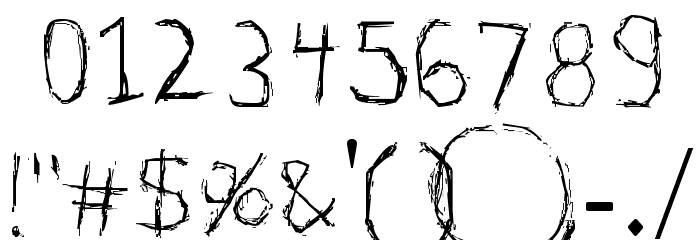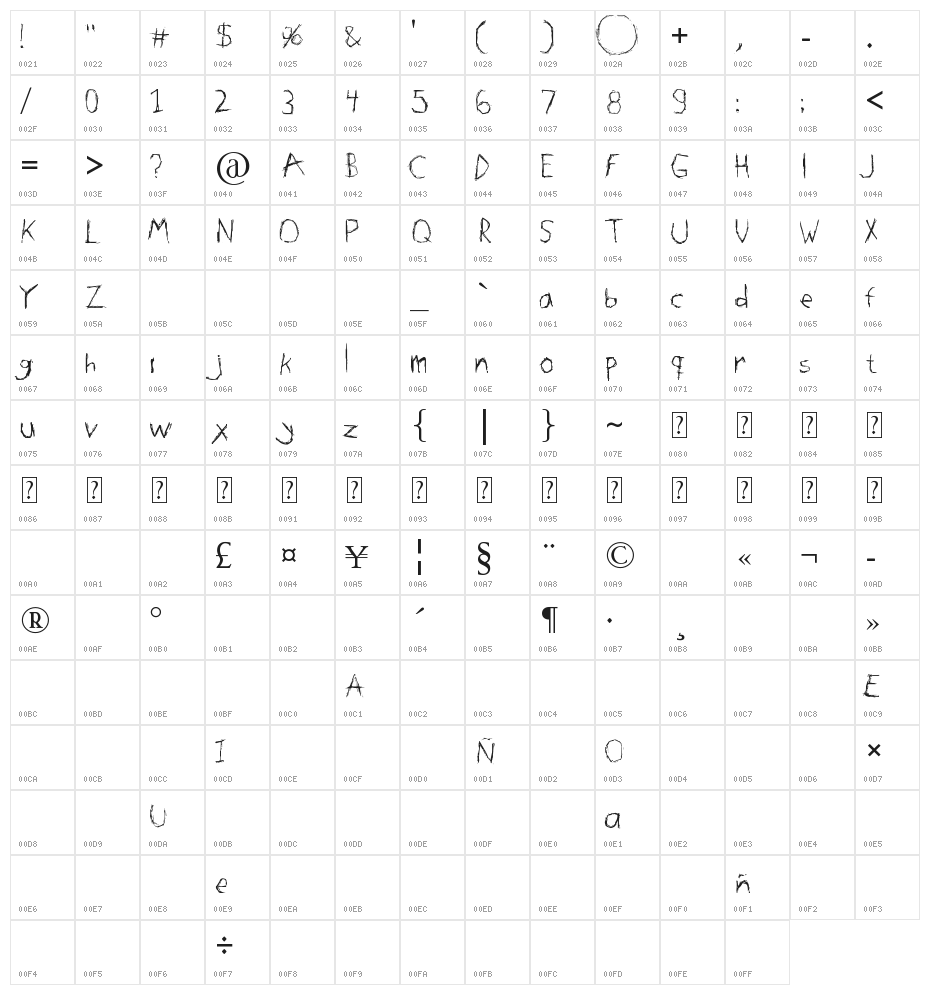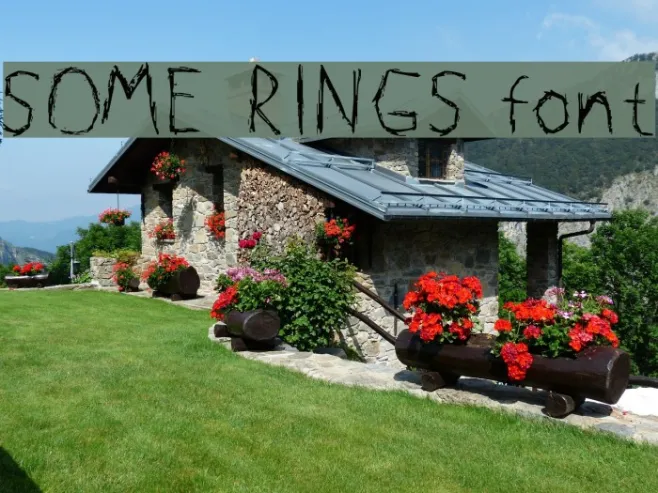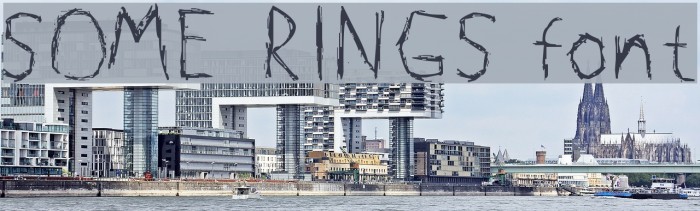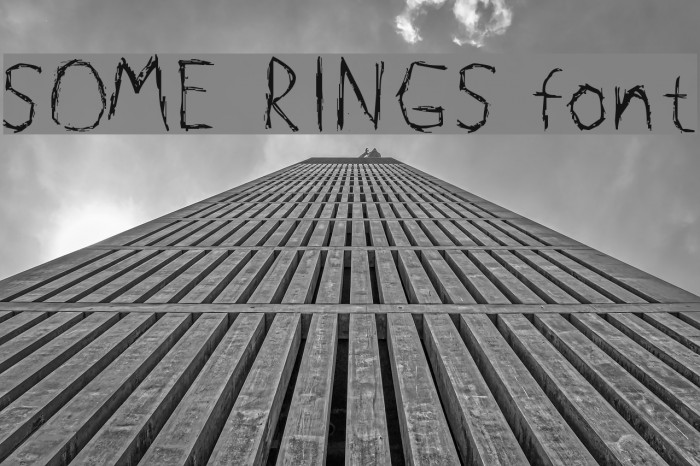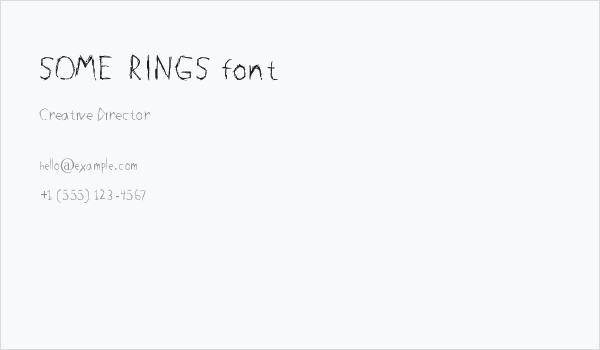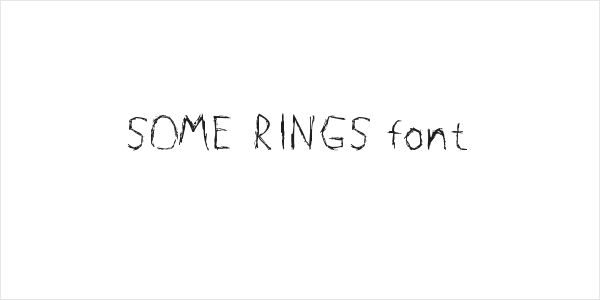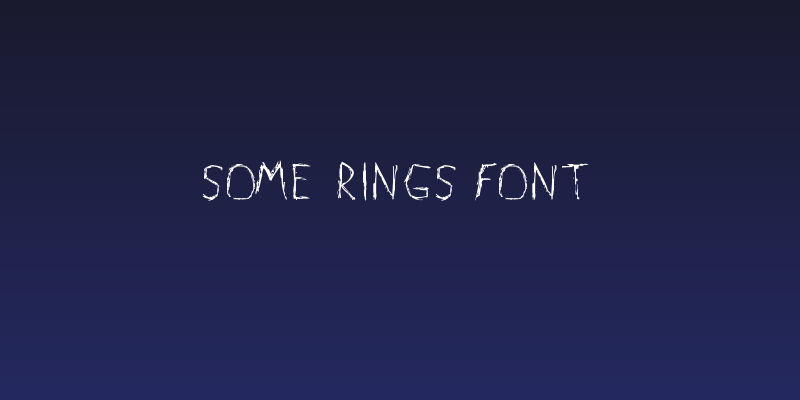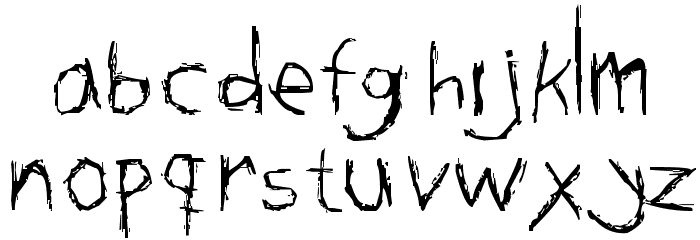
SOME RINGS font Font
SOME RINGS font Description
This font exhibits a rugged, hand-drawn style with a distressed appearance, reminiscent of rough sketches or graffiti. The characters are uneven and irregular, giving a raw, organic feel. Each letter appears to have been drawn with a brush or pen that has a frayed tip, contributing to its unique texture. The uppercase and lowercase letters maintain a consistent style, with jagged edges and varying line thicknesses. Numbers and special characters follow the same aesthetic, ensuring a cohesive look across all glyphs. This font is ideal for projects that require a bold, unconventional statement, capturing attention with its edgy and artistic flair.
| Proposed Projects | Ideal for album covers, posters, street art designs, and edgy branding projects. |